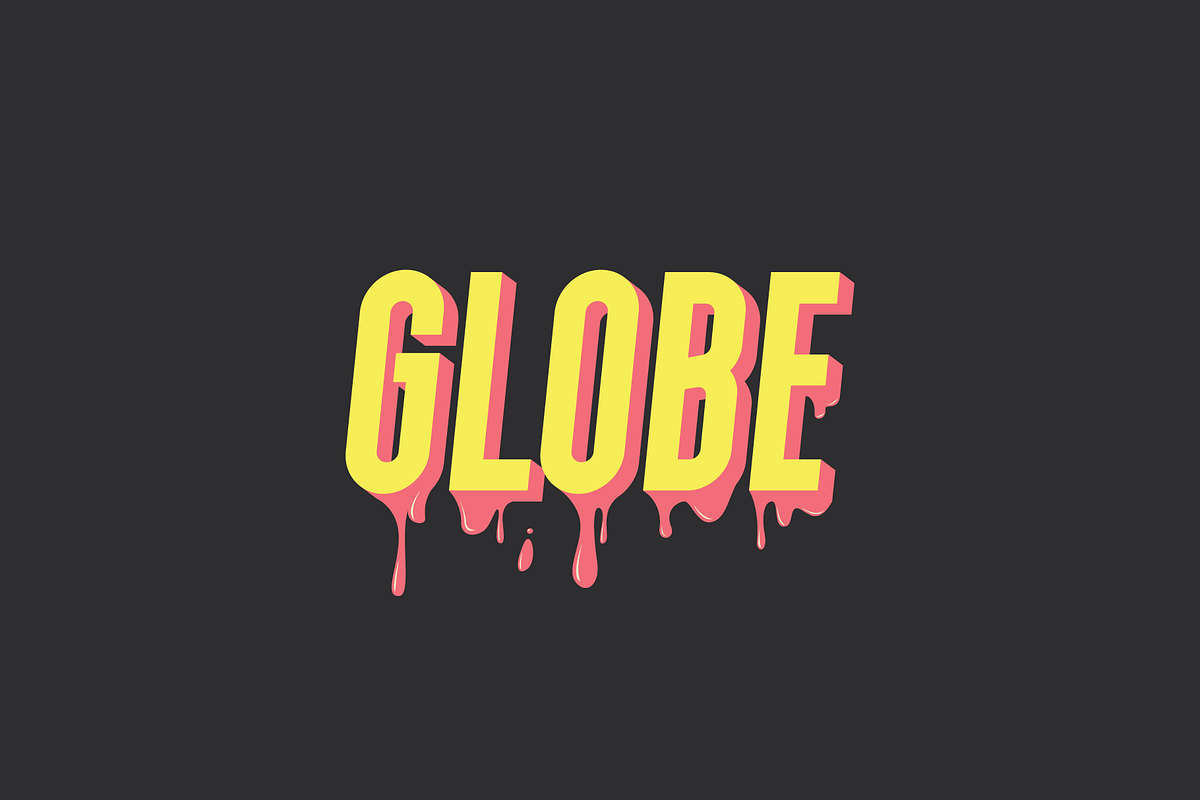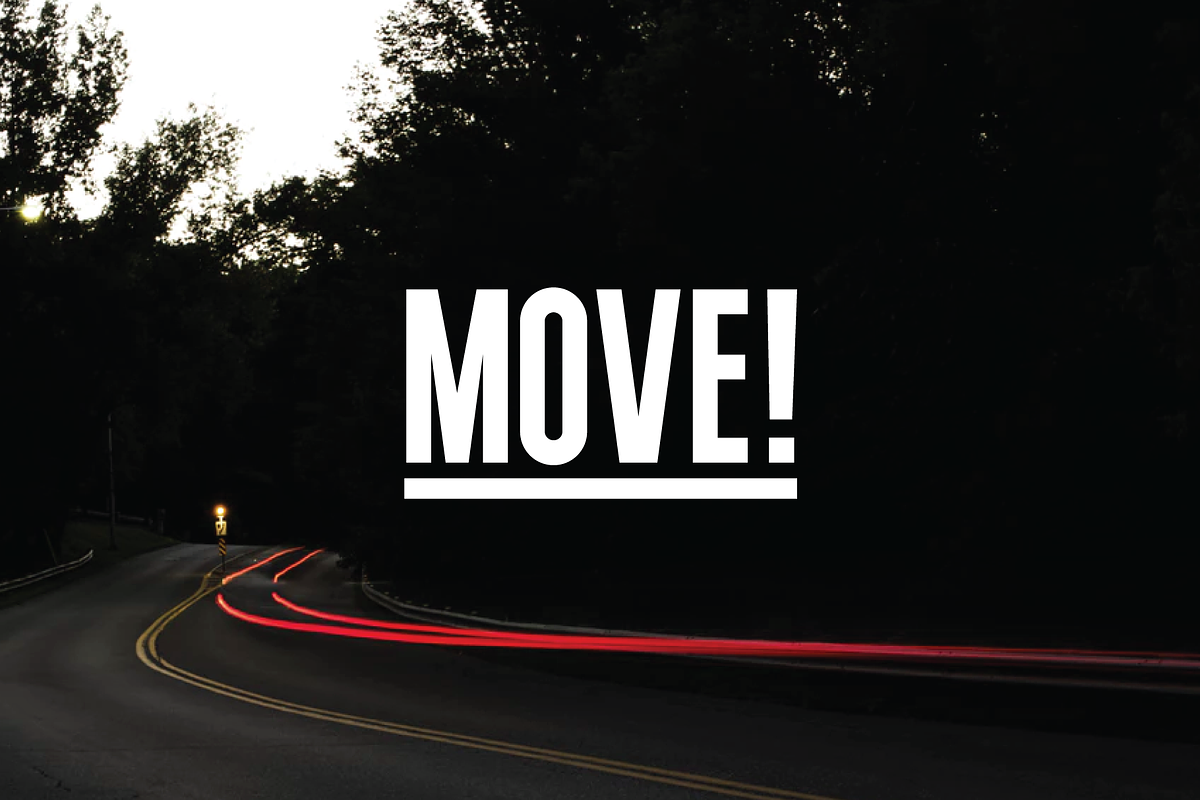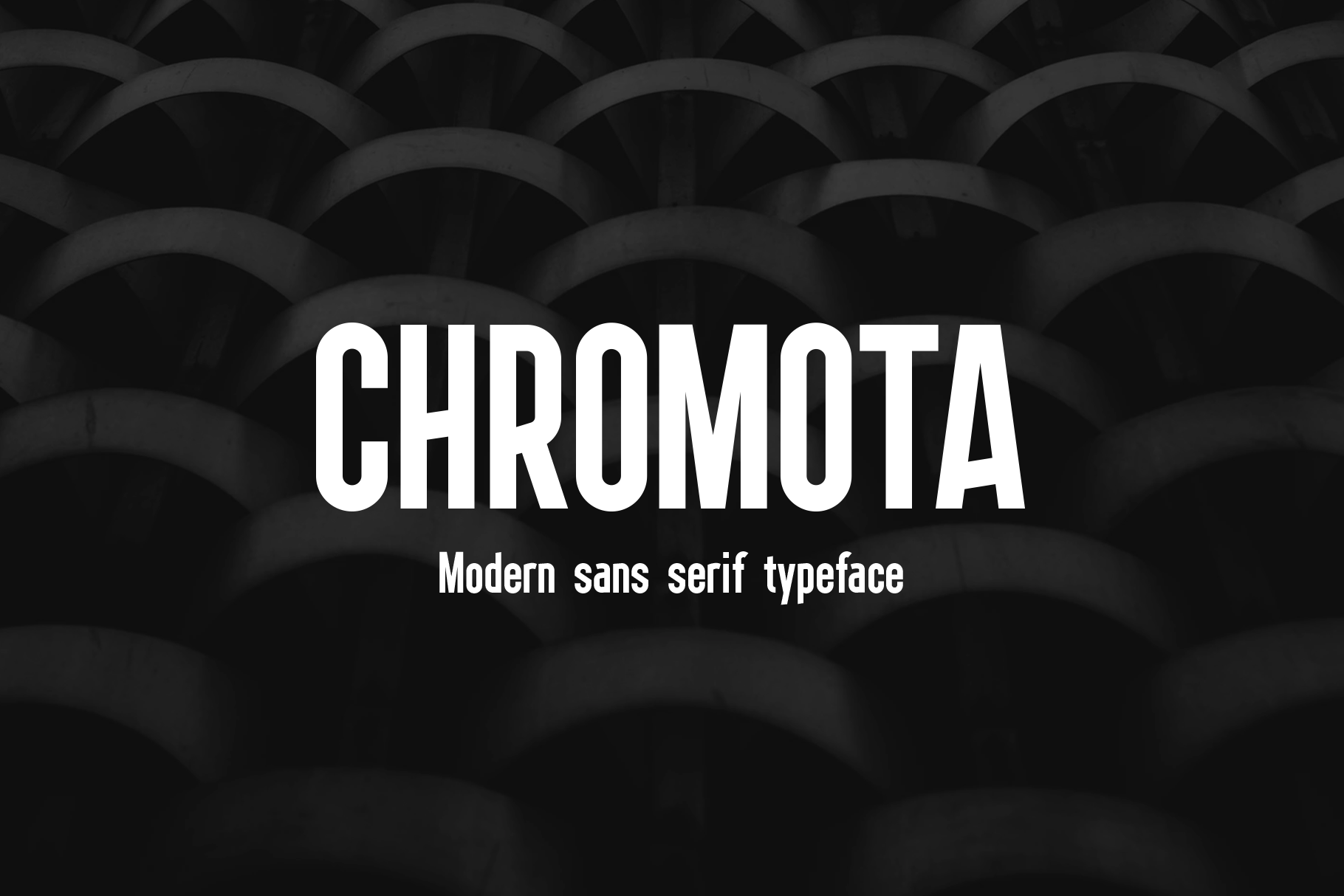
Chromota Font
Chromota is a modern sans-serif typeface with asymmetric glyph design.
Looks great for logos, branding, headlines.
Extended latin glyphs set
Basic Cyrillic set
Regular, Rounded and Italics